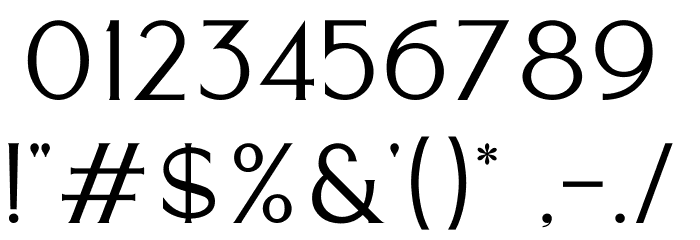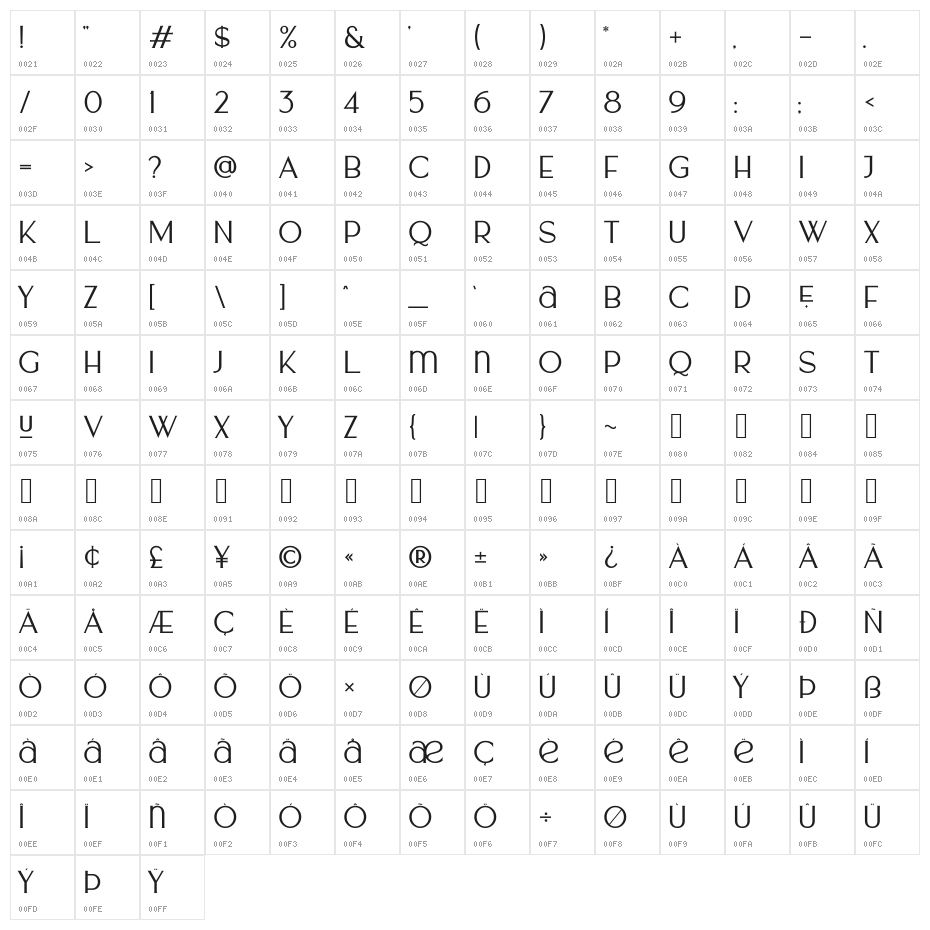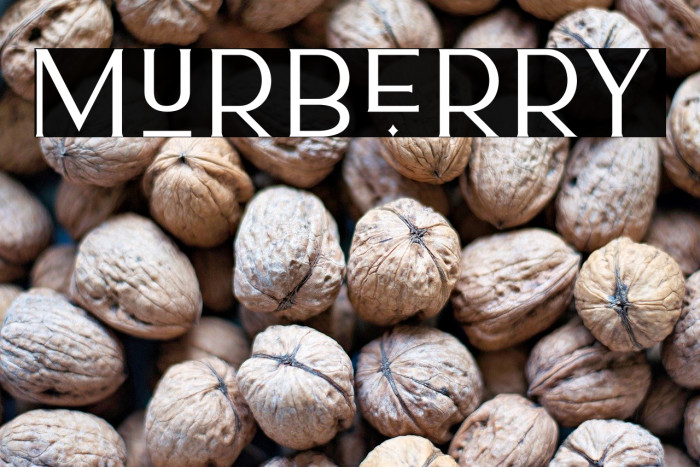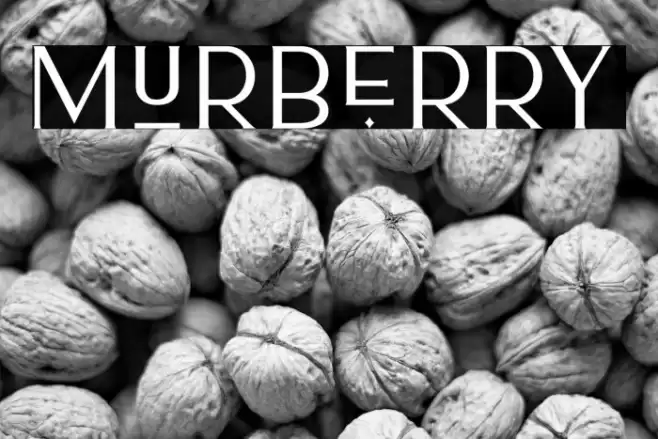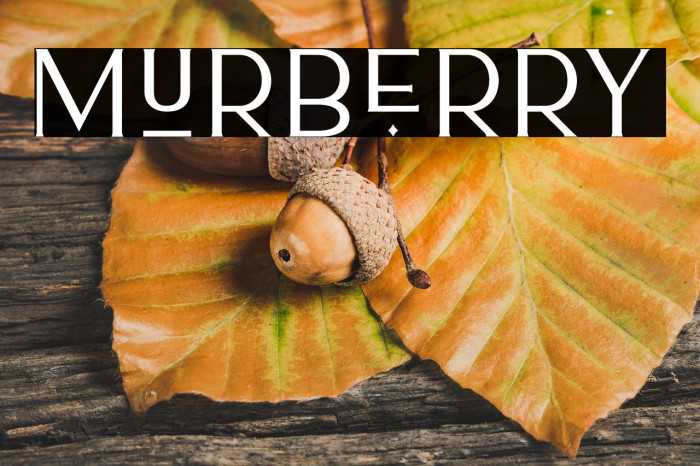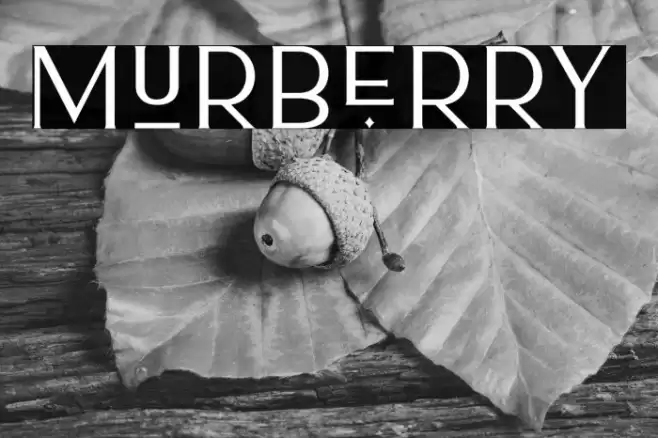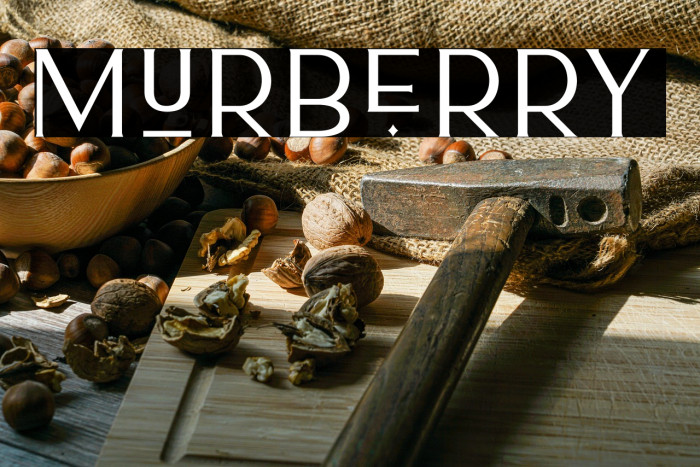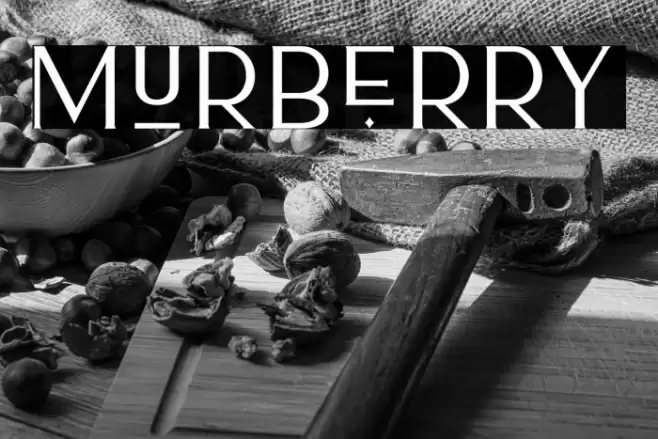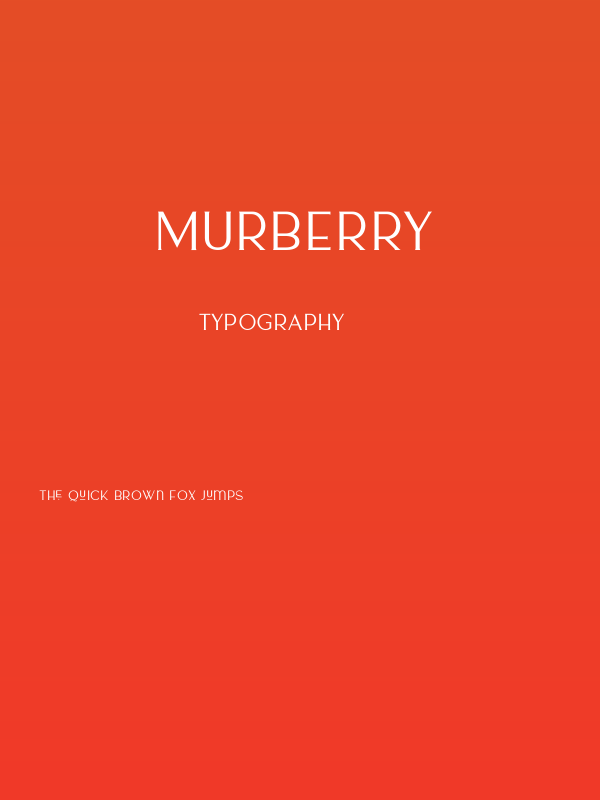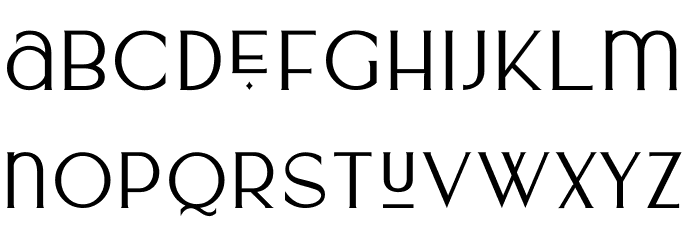
Murberry Font
Murberry Description
This font exhibits a modern and clean design with a sans-serif style. The characters are well-proportioned, featuring a consistent stroke width that gives it a sleek and contemporary appearance. The uppercase letters are bold and commanding, while the lowercase letters maintain a harmonious balance with slightly rounded edges. The numerals are clear and easily distinguishable, making them suitable for various applications. Special characters are included, providing versatility for different design needs. The overall aesthetic is minimalistic yet elegant, making it ideal for modern branding and design projects.